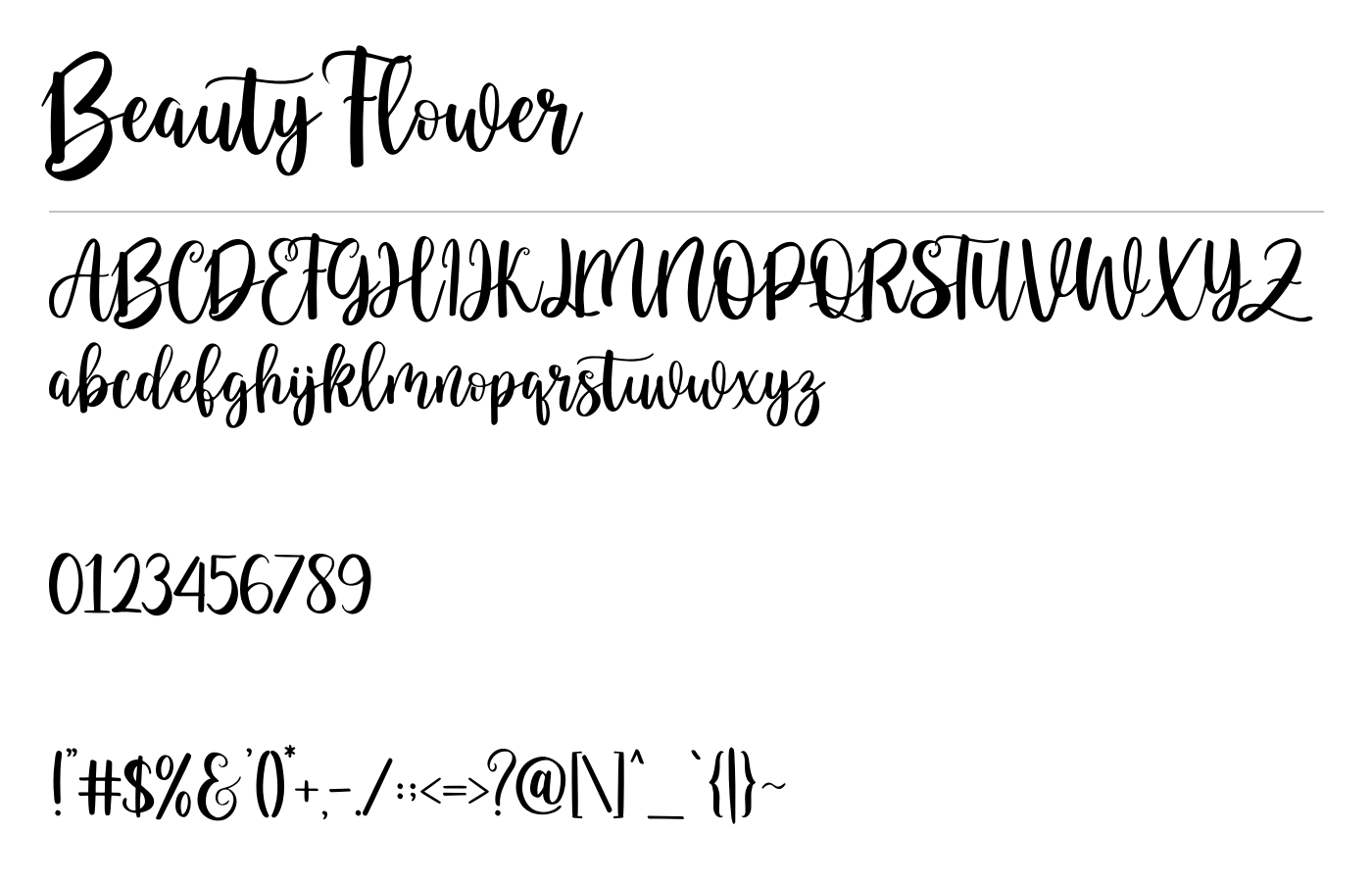
Beauty Flower Font is a charming and elegant script typeface featuring smooth, flowing strokes with a playful yet refined character. Its moderate contrast and delicate swashes give it a hand-lettered, artistic feel perfect for creating warm, inviting designs in branding, invitations, and feminine or creative projects. This font shines in headline use where its stylish and graceful personality can truly stand out.
Beauty Flower Font
About Beauty Flower Font
| Font family | Beauty Flower Font |
| Designer | FebrylArully |